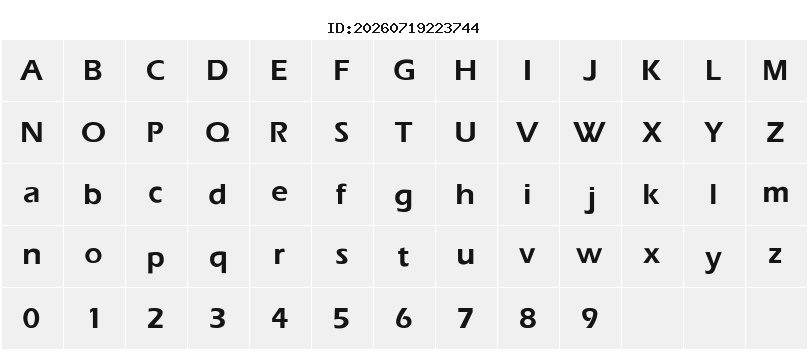
• Font Name: Eras-Black-SemiBold
• Full Font Name: Eras-Black-SemiBold
• PostScript Name: Eras-Black-SemiBold
About Eras-Black-SemiBold.ttf
Eras-Black-SemiBold.ttf is a modern, elegant sans-serif font designed for ultimate readability and visual harmony. Perfect for branding, headlines, web design, and print materials.